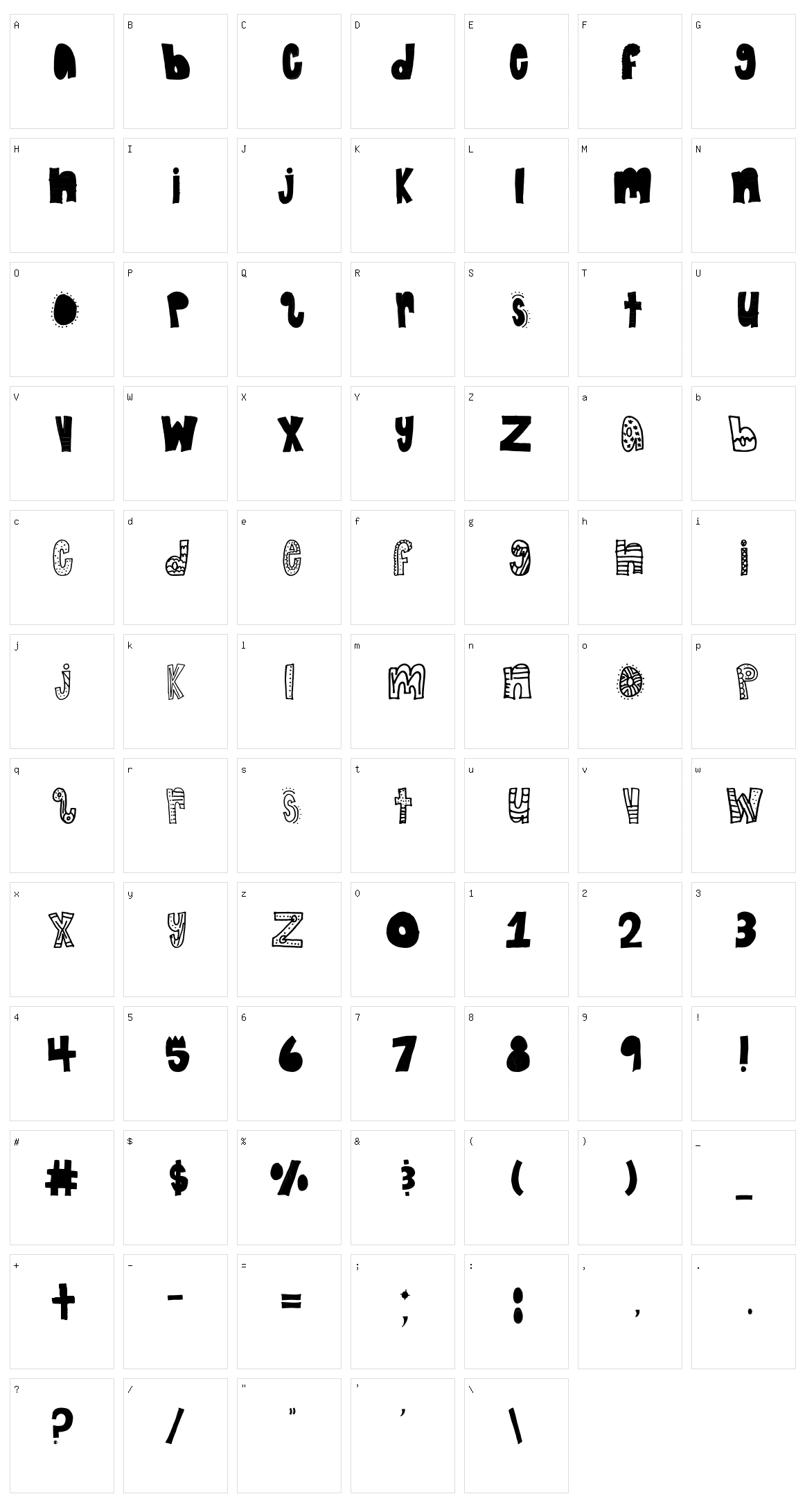
The free font Creation Station is carefully designed by Claire O'Connor, showcasing a thoughtful balance of creativity and usability and falls under the Cartoon font style. When you download the ZIP file, it contains only 279.56 KB of font files, making it lightweight and quick to download. Please review the license details below to understand permitted usage and distribution rights. If license information is not available, we recommend using this font for personal projects only or contacting the author directly for commercial usage permissions.